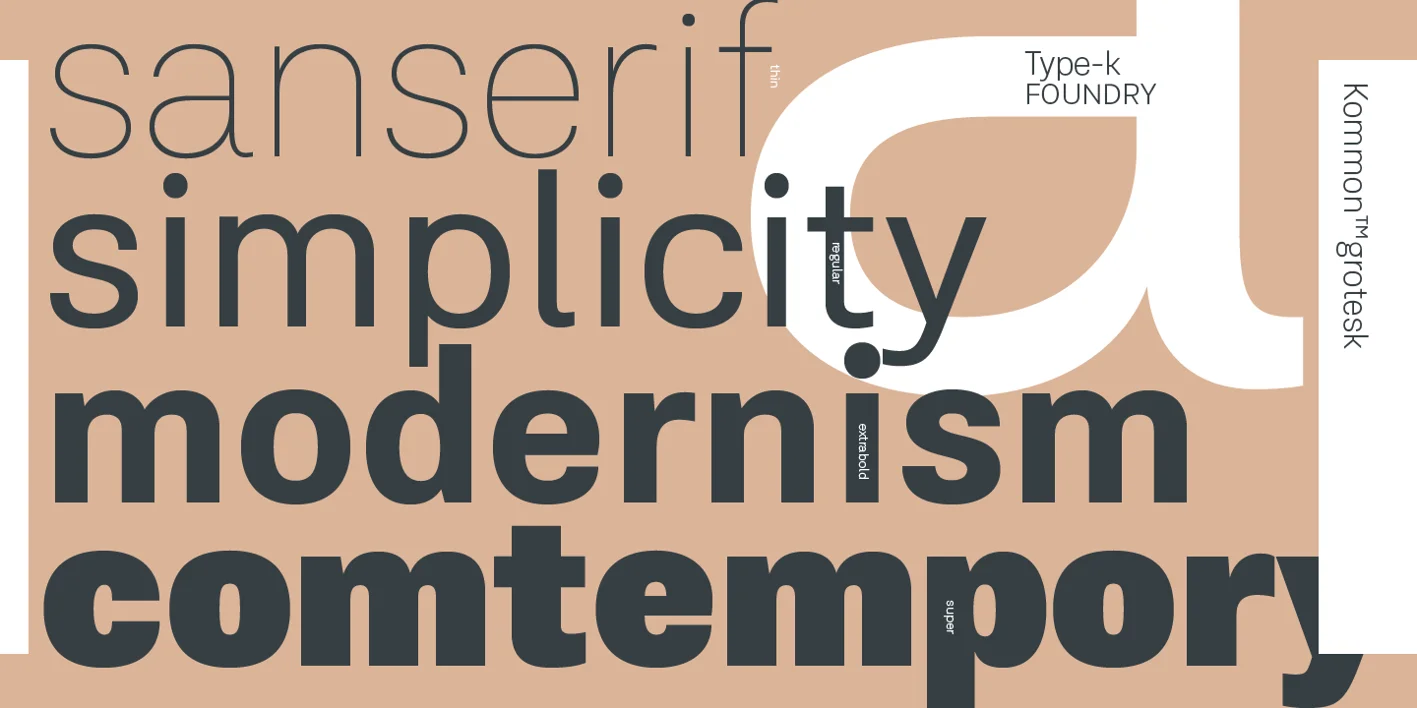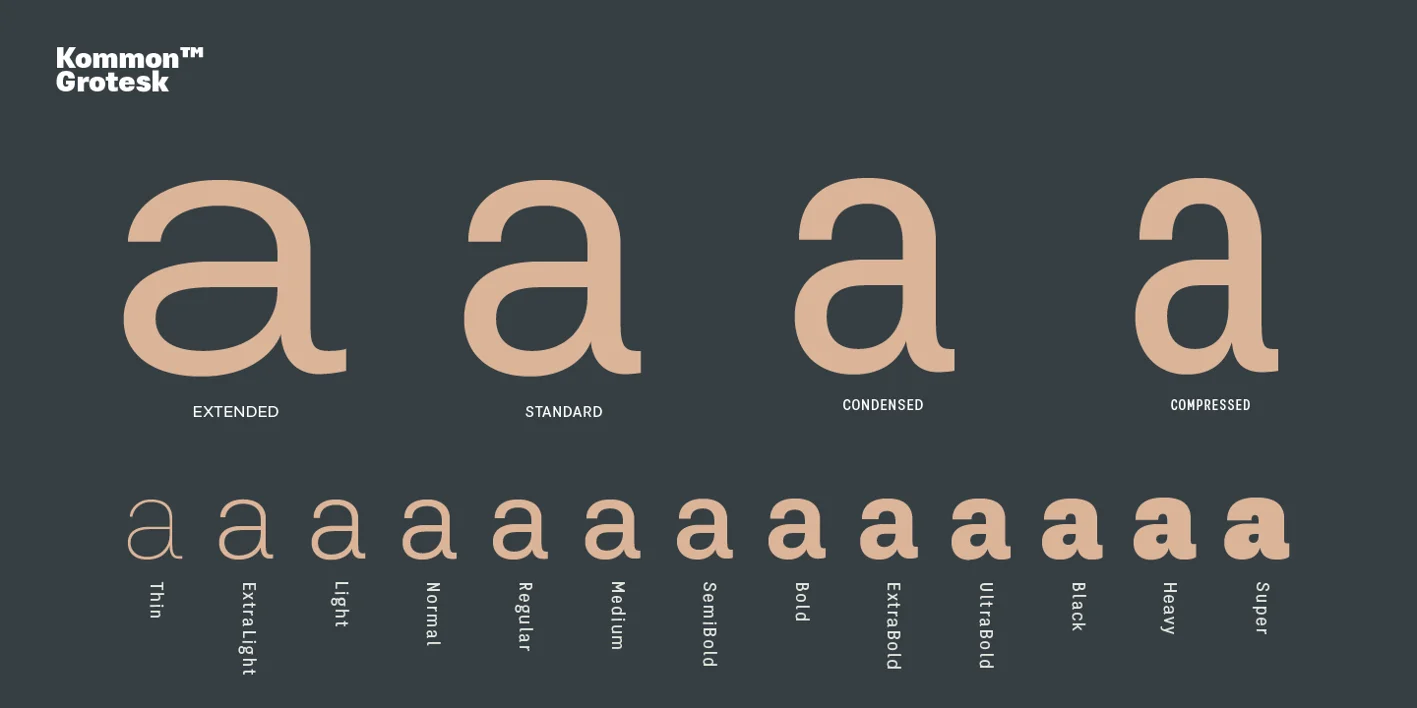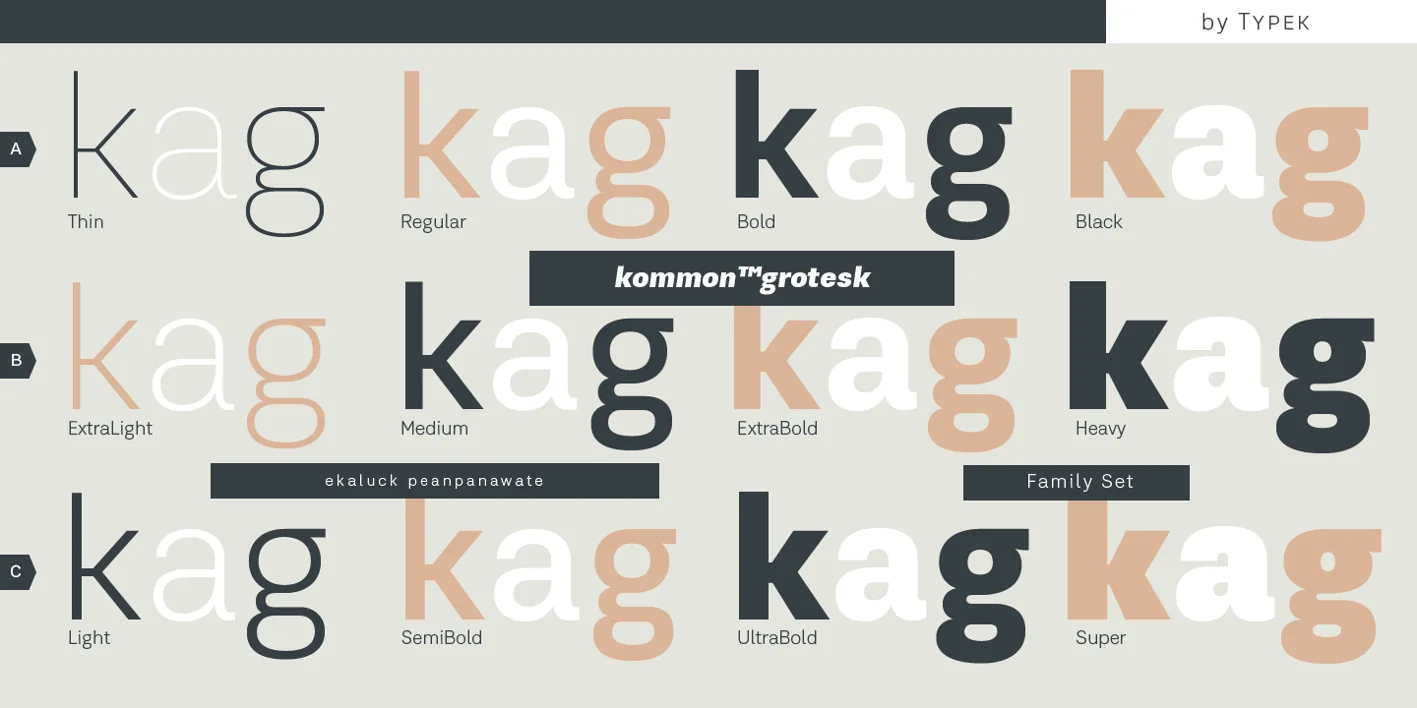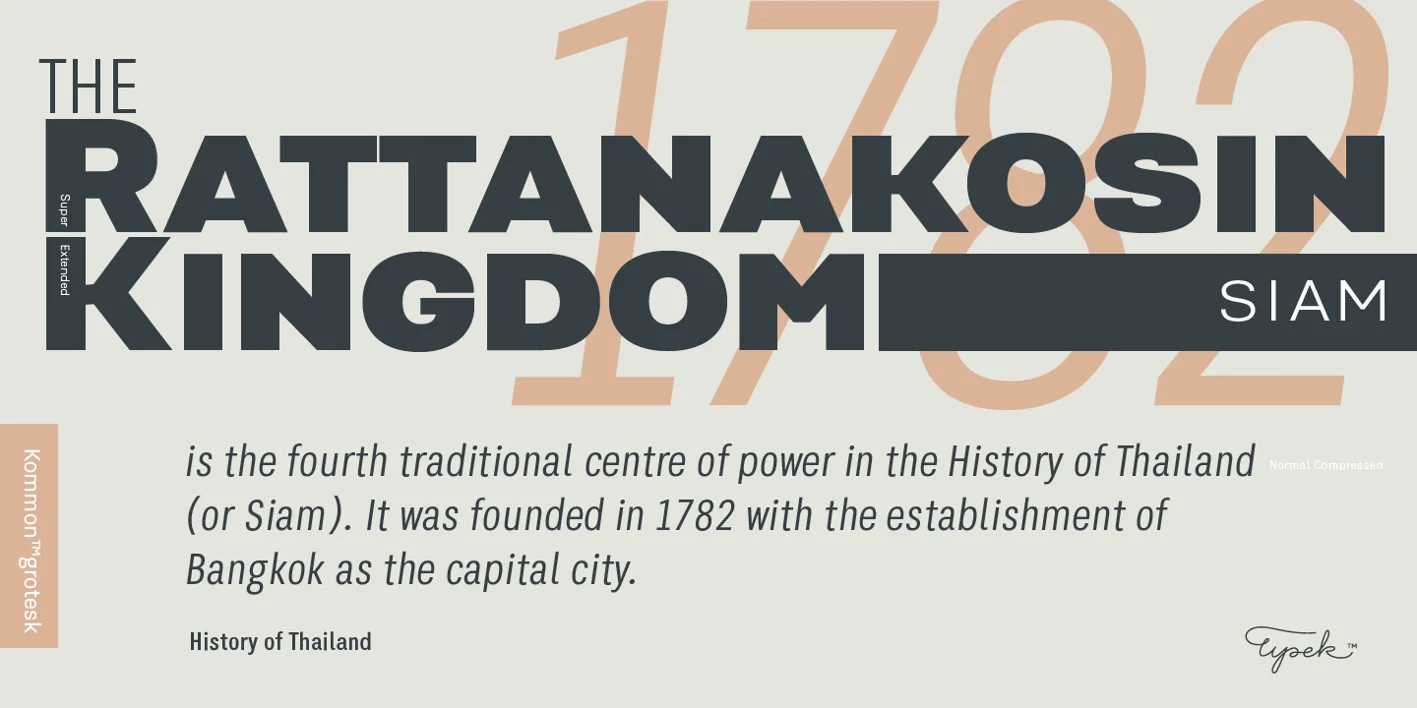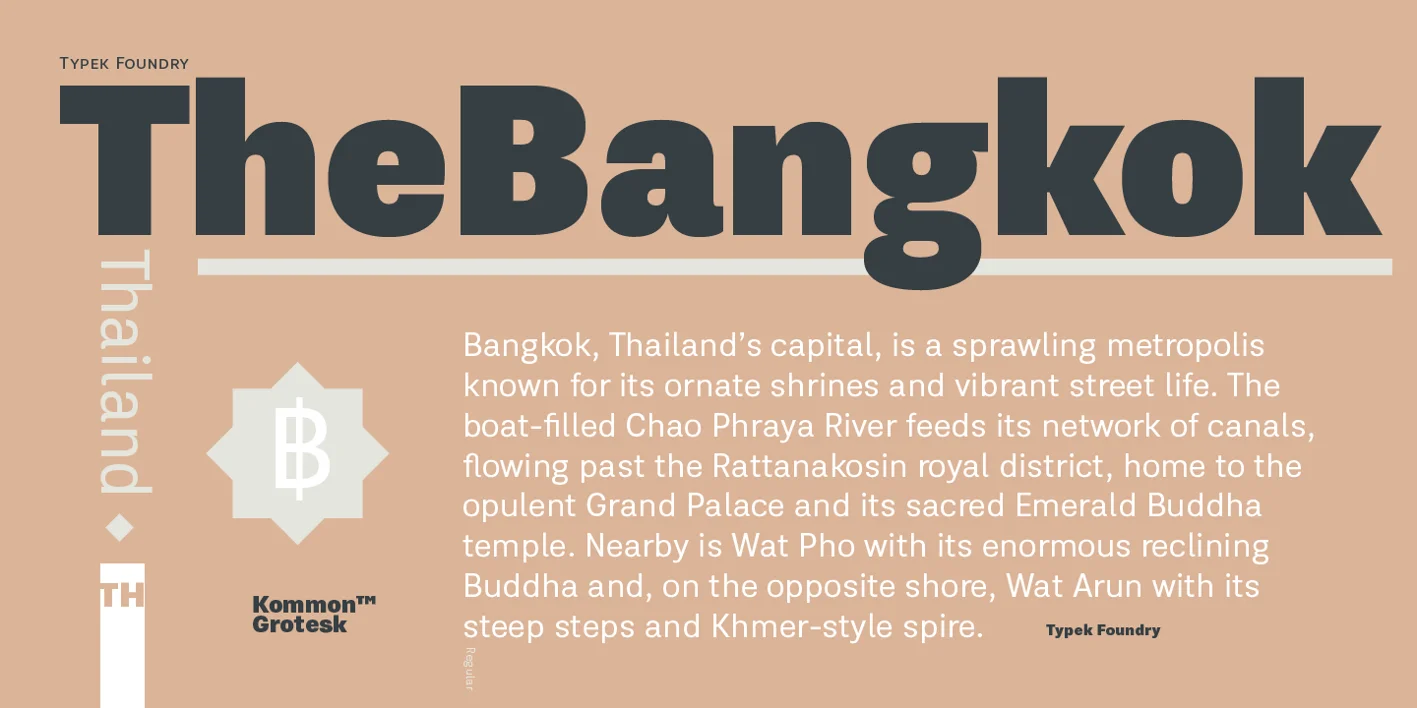
Kommon Grotesk Font
A good typeface communicates tone before a single word is read. Kommon Grotesk achieves this through controlled contrast that rewards close inspection. The typeface brings a versatile sensibility to a broad range of creative disciplines, with refined proportions and careful stroke modulation that holds up whether the work is print-first or screen-first.
In practice, Kommon Grotesk proves particularly effective for social media graphics, poster creation, advertising campaigns, web design, packaging design. Designers reaching for it find that the type decisions feel resolved rather than laboured — a useful quality when client timelines are tight.
The range of applications extends to editorial layouts, environmental graphics, product labels, logo design. That breadth is deliberate: the proportions and spacing were stress-tested across a wide range of mock briefs before the typeface was finalised.
Pairing Kommon Grotesk with a contrasting serif or a neutral grotesque gives mixed-format layouts a clear visual grammar without requiring constant size adjustments to establish hierarchy.
In-house creative teams at consumer brands find Kommon Grotesk a reliable choice for projects that demand both personality and restraint. The design avoids the self-conscious quirkiness that dates quickly, settling instead for considered distinctiveness that holds up over time.